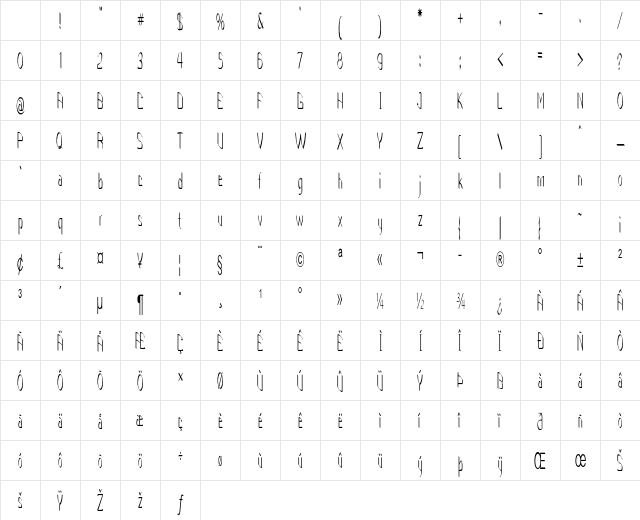
Complete Pantrio Extra-condensed Regular glyph index. Displaying only characters natively supported by Pantrio Extra-condensed Regular font.
Pantrio is a composed and adaptable typeface that performs quietly and consistently across a wide range of design contexts. Its narrow stance lets it pack a punch even in space-constrained designs.